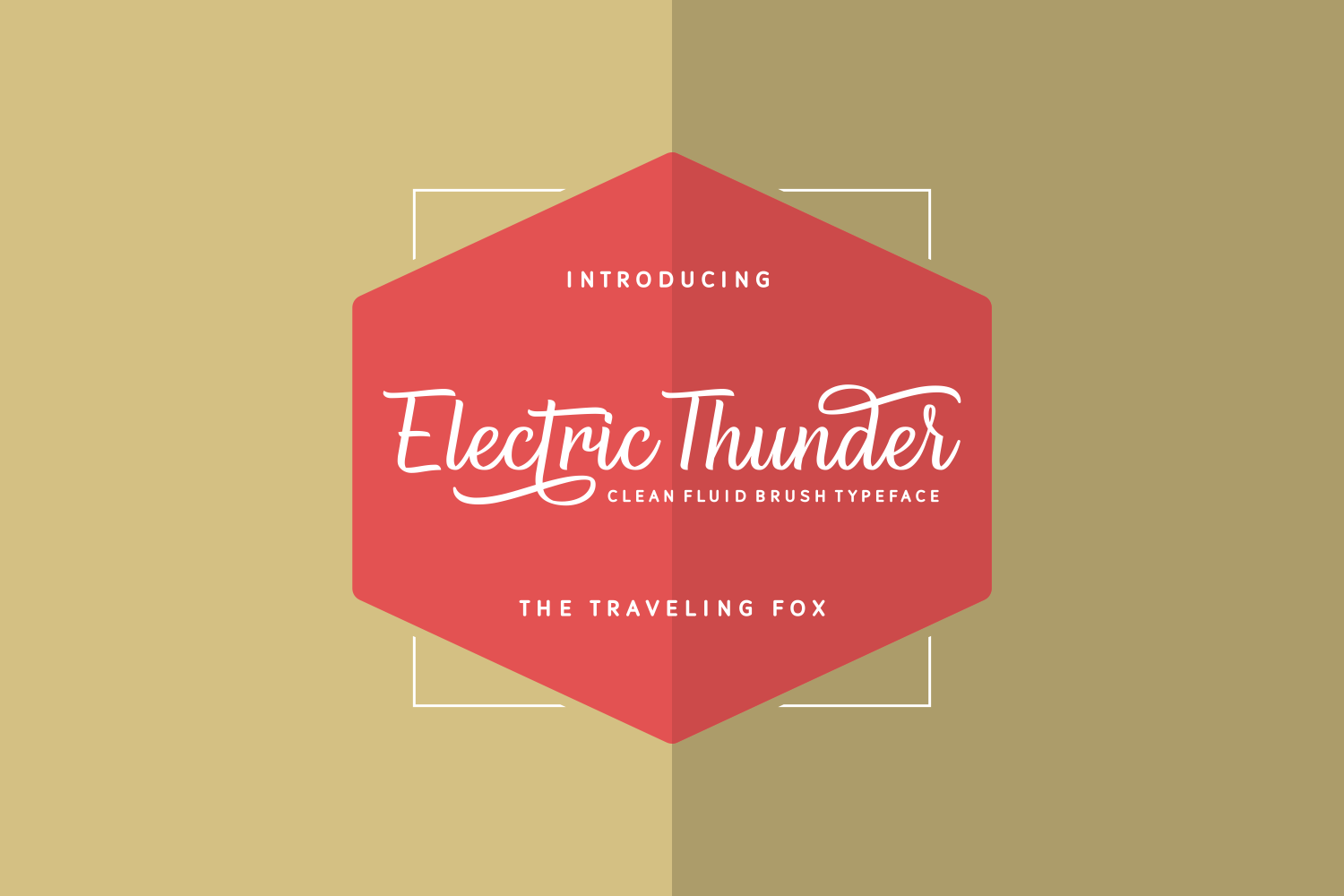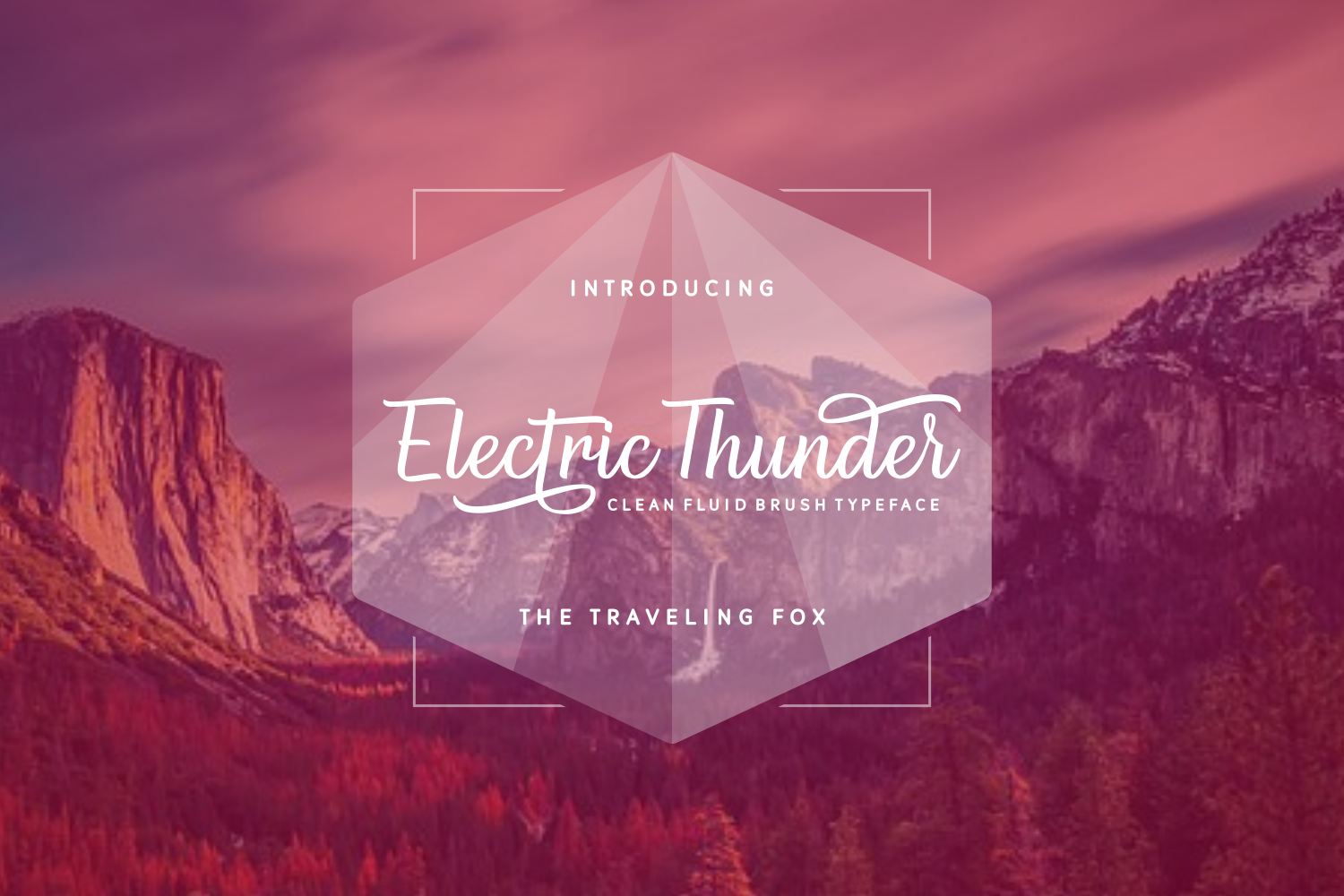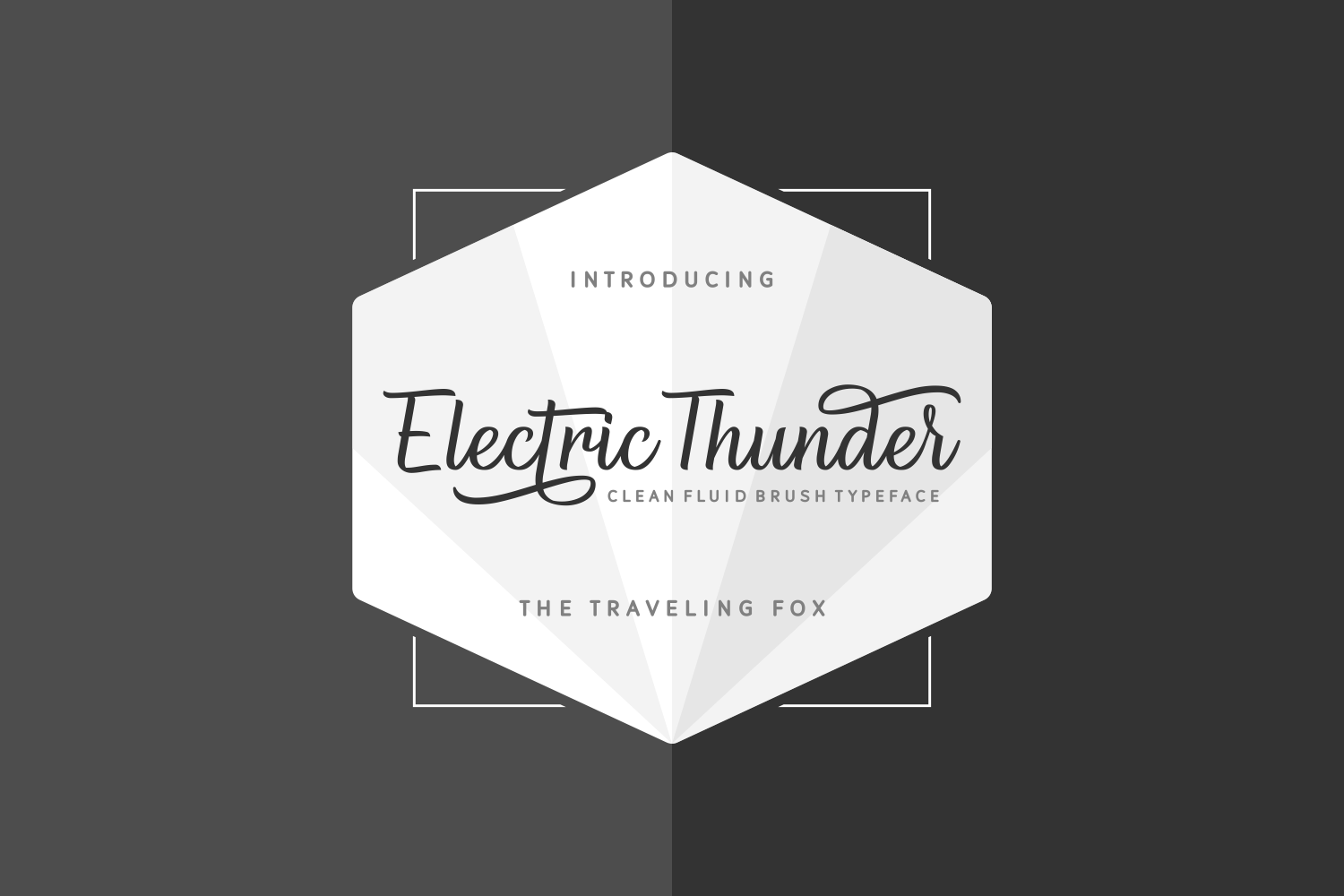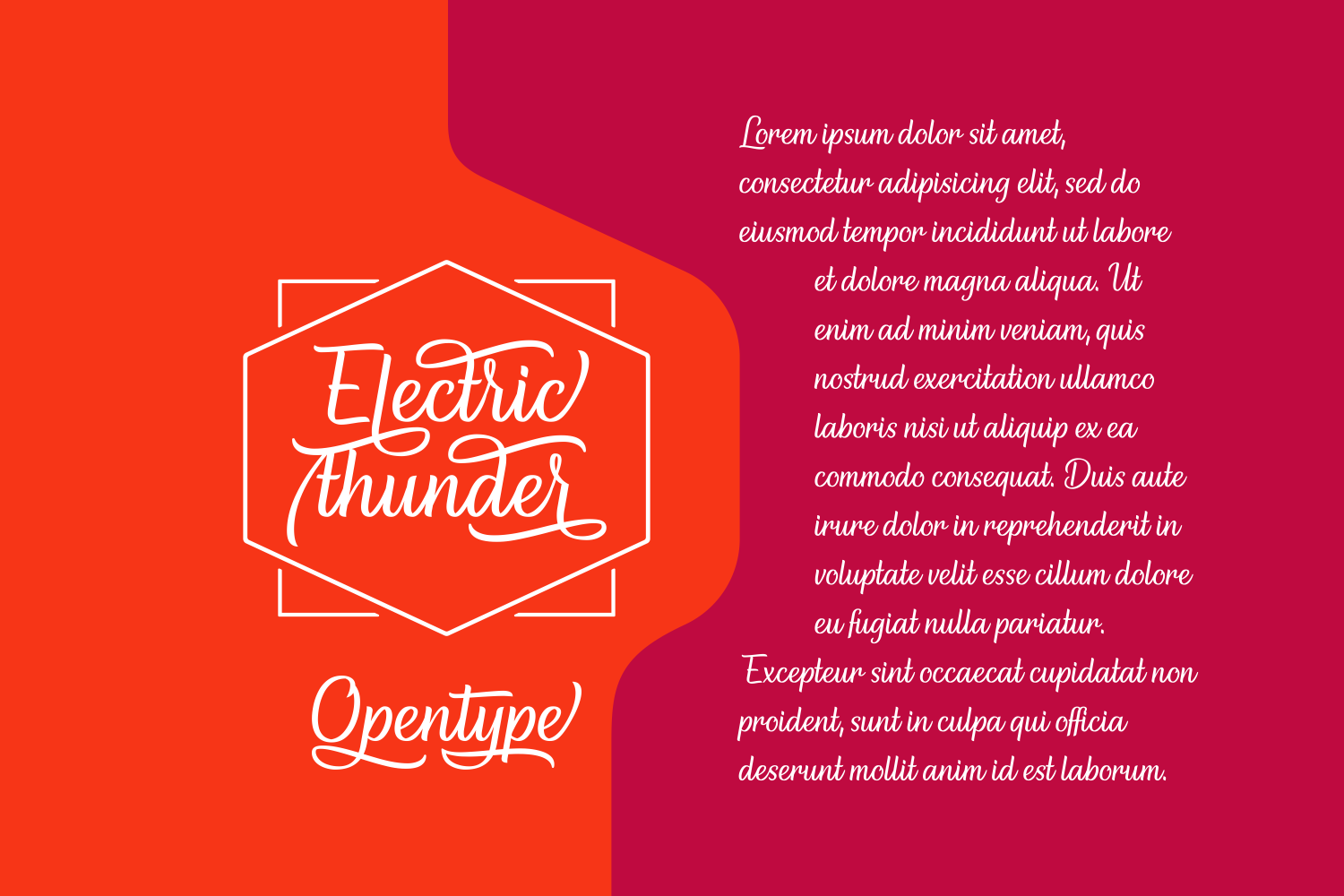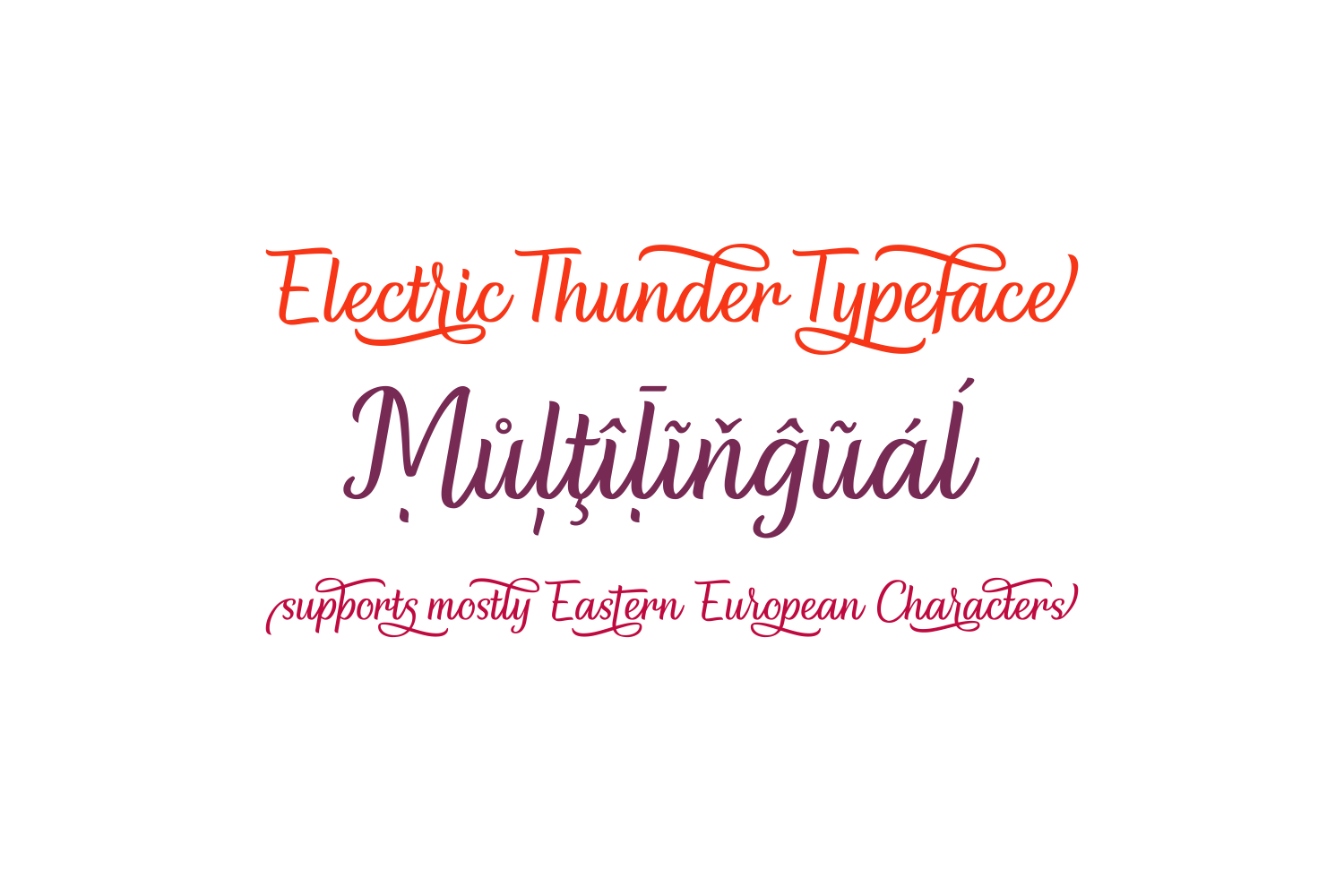
Unleash Your Creativity with Electric Thunder Font
Are you a designer or crafter looking for a unique and versatile font to elevate your creative projects? Look no further than Electric Thunder Font, a fluid script that embodies the essence of natural flowing movements. With over 630 unique glyphs and a plethora of stunning alternates, this font is designed to inspire your imagination and help you create endless combinations and variations.
The Inspiration Behind Electric Thunder Font
Electric Thunder Font is inspired by the natural world, where flowing movements and organic shapes reign supreme. The font’s creator aimed to capture the dynamic energy of electricity and the fluidity of water, resulting in a script that exudes a sense of movement and freedom. Whether you’re designing a logo, crafting a handmade card, or creating digital art, Electric Thunder Font is the perfect tool to add a touch of elegance and sophistication to your work.
Key Features of Electric Thunder Font
- 630+ Unique Glyphs: Electric Thunder Font boasts an impressive collection of over 630 unique glyphs, ensuring that you’ll have ample options to create distinctive and eye-catching text.
- Stunning Alternates: The font comes with a wide range of alternates, allowing you to experiment with different variations and combinations to suit your design needs.
- Fluid Script: Electric Thunder Font features a fluid script design that mimics natural flowing movements, giving your text a sense of dynamism and energy.
- Multilingual Support: This font supports multiple languages, making it an excellent choice for designers and crafters working on international projects.
With Electric Thunder Font, the creative possibilities are endless. Here are a few ideas to get you started:
- Logo Design: Use Electric Thunder Font to create a unique and memorable logo for your business or brand.
- Handmade Cards and Invitations: Add a touch of elegance to your handmade cards and invitations with this beautiful script font.
- Digital Art: Experiment with Electric Thunder Font to create stunning digital art pieces that showcase your creativity.
- Branding and Packaging: Use this font to create eye-catching branding and packaging materials that set your product apart from the competition.
Tips for Using Electric Thunder Font
To get the most out of Electric Thunder Font, here are a few tips to keep in mind:
- Experiment with Alternates: Don’t be afraid to try out different alternates and combinations to find the perfect look for your project.
- Mix and Match: Combine Electric Thunder Font with other fonts to create a unique and visually appealing design.
- Pay Attention to Kerning: Make sure to adjust the kerning to ensure that your text looks balanced and harmonious.
| Font Name | Electric Thunder Font |
| Author | The Traveling Fox |